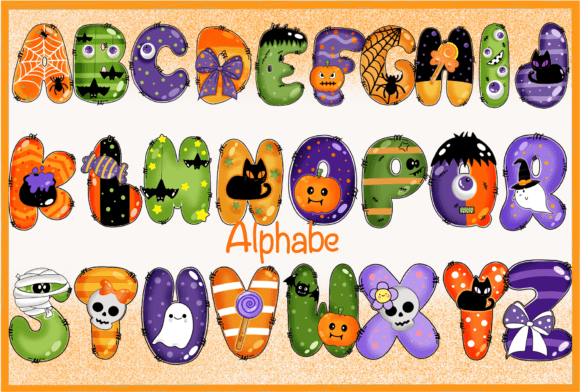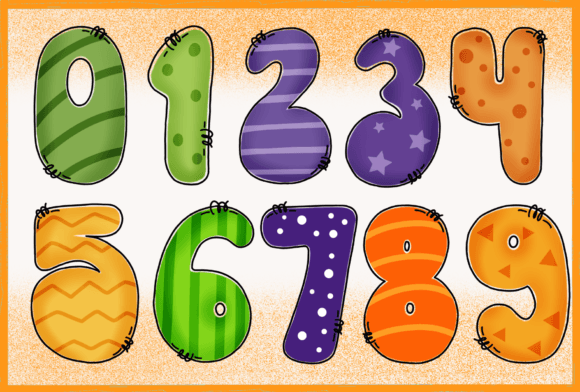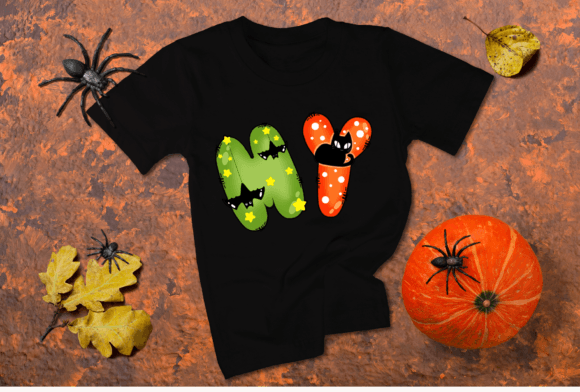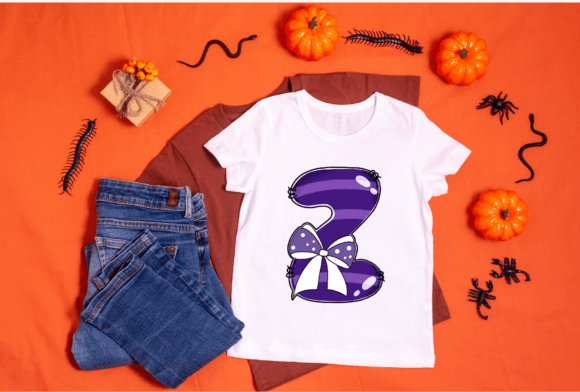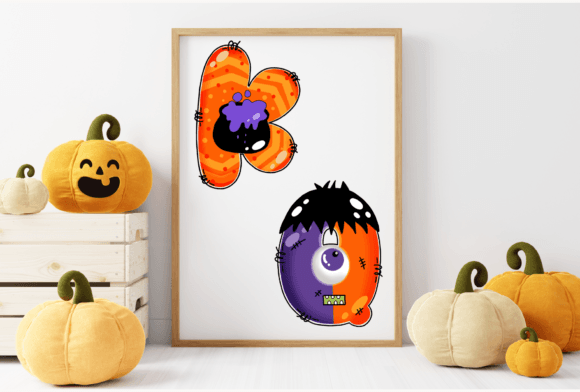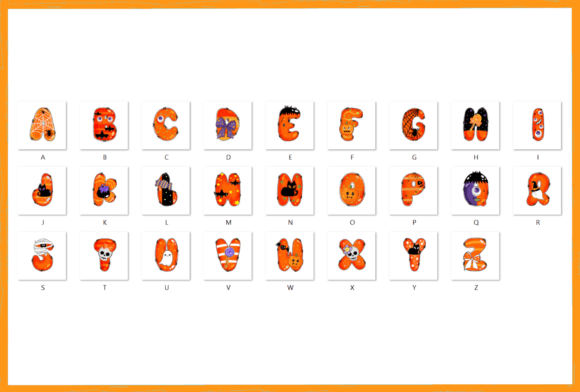
Halloween Groovy Font: The Spookiest and Funkiest Font for Your Halloween Designs
Are you looking for a font that screams Halloween? Look no further than the Halloween Groovy Font! This fun and playful font is perfect for adding a spooky touch to your Halloween designs, whether you’re creating invitations, posters, or merchandise.
What is Halloween Groovy Font?
Halloween Groovy Font is a unique and eye-catching font that captures the spirit of Halloween. With its bold and playful letters, this font is sure to make your designs stand out. The font features a fun and funky style, with a mix of uppercase and lowercase letters, numbers, and punctuation marks.
Why Use Halloween Groovy Font?
Now this is a fun Halloween font. Halloween Groovy is exactly what you would expect to see on a poster or merchandise designed for Halloween. Invitations, postcards, posters, and headings for a Halloween event; this font can be used in every setting. Here are just a few reasons why you should consider using Halloween Groovy Font in your designs:
- Perfect for Halloween designs: The Halloween Groovy Font is specifically designed for Halloween, making it the perfect choice for any design project related to the holiday.
- Versatile: This font can be used in a variety of settings, from invitations and posters to merchandise and headings.
- Easy to read: Despite its playful style, the Halloween Groovy Font is easy to read, making it perfect for designs that need to convey a message.
- Unique and eye-catching: The Halloween Groovy Font is sure to make your designs stand out from the crowd.
How to Use Halloween Groovy Font?
Using the Halloween Groovy Font is easy! Here are a few tips to get you started:
- Pair it with other fonts: The Halloween Groovy Font pairs well with other fonts, such as sans-serif fonts like Arial or Helvetica.
- Use it for headings: The Halloween Groovy Font is perfect for headings and titles, adding a fun and playful touch to your designs.
- Experiment with colors: The Halloween Groovy Font looks great in a variety of colors, from bright and bold to more muted and subtle.
Halloween Groovy Font in Design and Crafting
The Halloween Groovy Font is not just limited to digital designs. It’s also perfect for crafters and DIY enthusiasts who want to add a personal touch to their Halloween projects. Here are a few ideas:
- Party invitations: Use the Halloween Groovy Font to create spooky and fun party invitations.
- T-Shirts and hoodies: Add the Halloween Groovy Font to your Halloween-themed t-shirts and hoodies.
- Halloween cards: Create spooky and fun Halloween cards using the Halloween Groovy Font.
- DIY decorations: Use the Halloween Groovy Font to add a personal touch to your DIY Halloween decorations.
The Halloween Groovy Font is a fun and playful font that’s perfect for adding a spooky touch to your Halloween designs. Whether you’re a designer or a crafter, this font is sure to inspire your creativity and help you create unique and eye-catching designs. So why wait? Download the Halloween Groovy Font today and start creating your own spooky and fun Halloween designs!
So, get creative and have fun with the Halloween Groovy Font! It’s the perfect addition to any Halloween design project, and it’s sure to bring a smile to your face and a howl of delight to your designs.